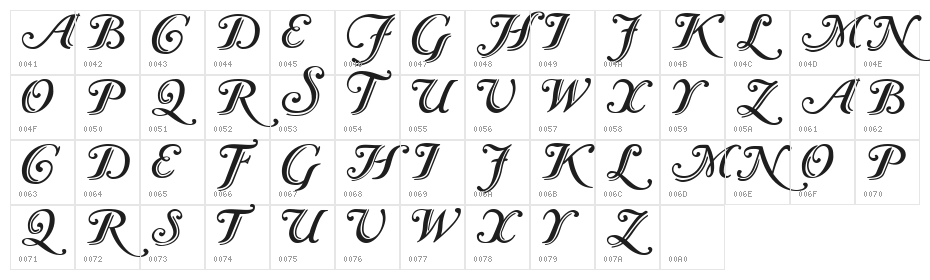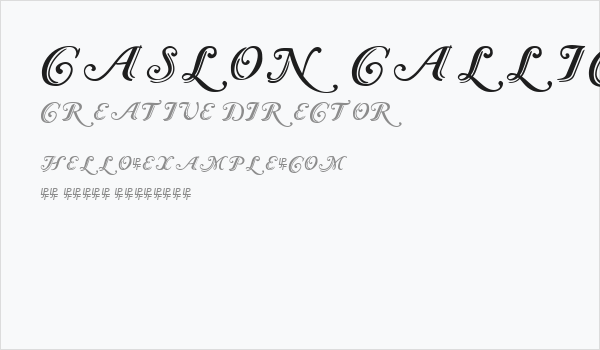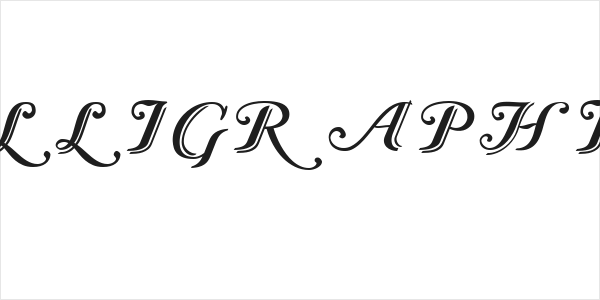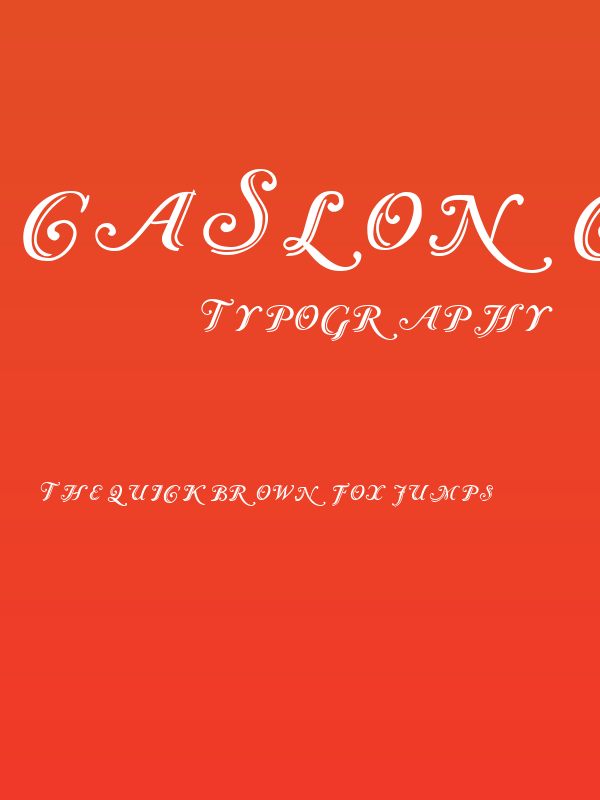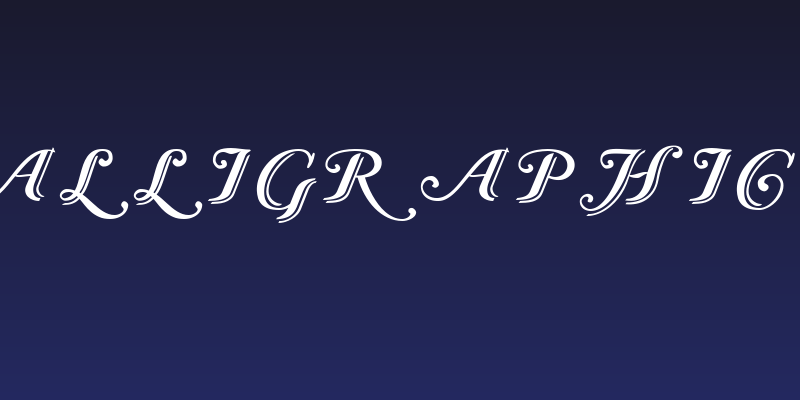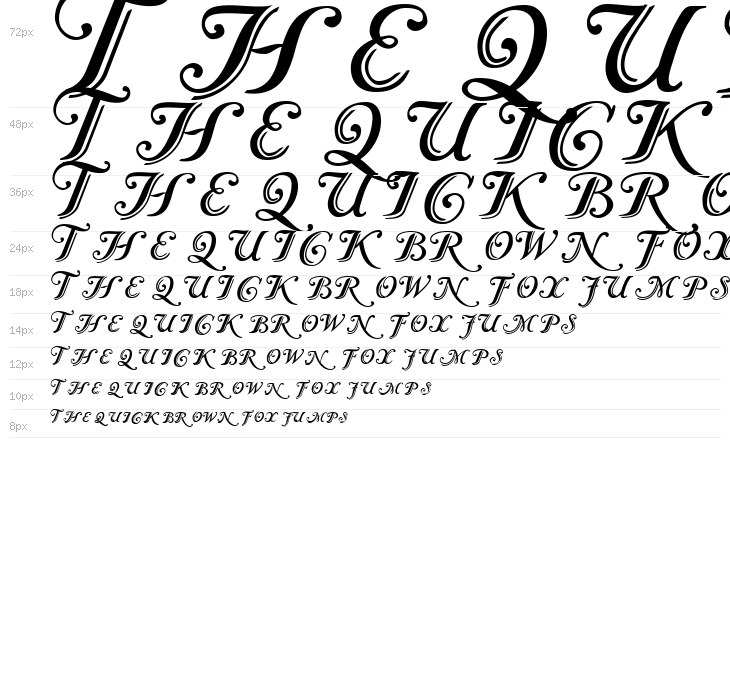
Caslon Calligraphic Initials Font
Caslon Calligraphic Initials Description
This font features an elegant and sophisticated calligraphic style, characterized by its flowing and ornate letterforms. Each character is adorned with delicate swashes and flourishes, giving it a distinctly classical and decorative appearance. The uppercase letters are particularly elaborate, with intricate curves and loops that enhance their visual appeal. The lowercase letters maintain a consistent style, complementing the uppercase with their own subtle embellishments. The numerals and special characters are designed to match the overall aesthetic, ensuring a cohesive look across all text. This font is ideal for projects that require a touch of elegance and refinement.
| Proposed Projects | Wedding invitations, luxury branding, formal event programs, elegant packaging design. |